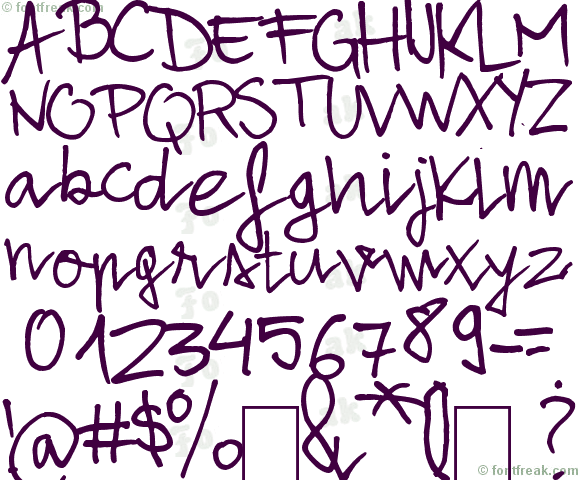
Alone Strand
Alone Strand by Leonard Posavec is a captivating handwritten font that embodies a casual yet artistic flair. This font falls under the category of script typefaces, characterized by its fluid strokes and a personal touch that evokes the feeling of handwritten notes. The visual characteristics feature a medium stroke weight, with a delightful variation that adds warmth and personality. The letters are spaced with care, allowing for readability while maintaining a relaxed, organic flow. Decorative elements like subtle flourishes enhance the overall aesthetic, making it an ideal choice for designs that aim to connect on a personal level.
The Alone Strand font is versatile, making it suitable for a variety of creative applications. It shines in wedding invitations, where its charming style can convey love and intimacy. For restaurant menus, it brings a touch of friendliness that can make the dining experience feel more inviting. Additionally, this font works well for social media graphics, providing a memorable visual identity for content creators looking to engage their audience. It is also perfect for crafting personalized greeting cards, adding a unique touch to any special occasion.
What sets Alone Strand apart is its ability to blend artistic flair with functional design. The font captures the essence of personal expression while remaining highly adaptable to various contexts. With the Alone Strand font free download, you can elevate your projects with a distinctive style that resonates with warmth and authenticity, making it a standout choice for any design endeavor.